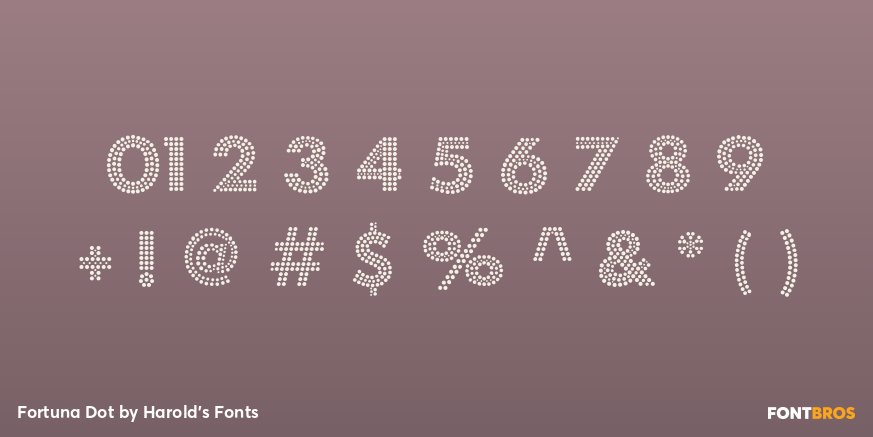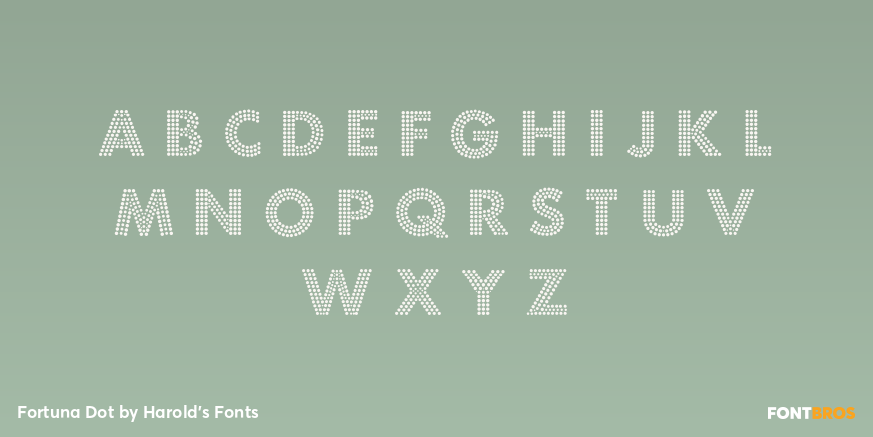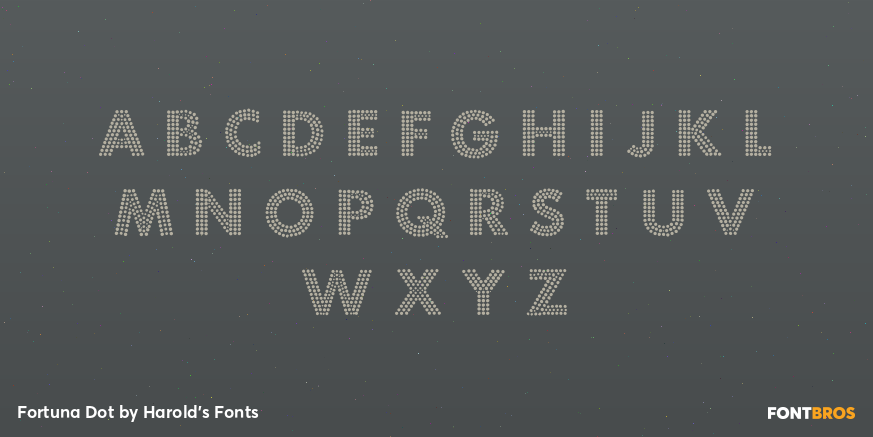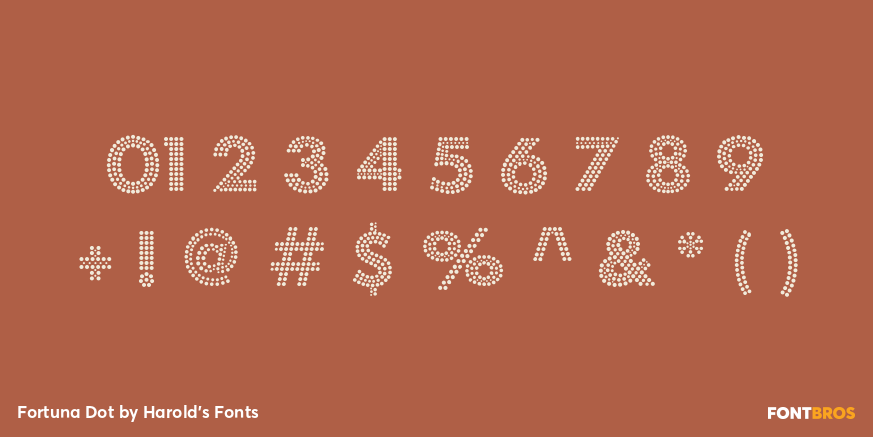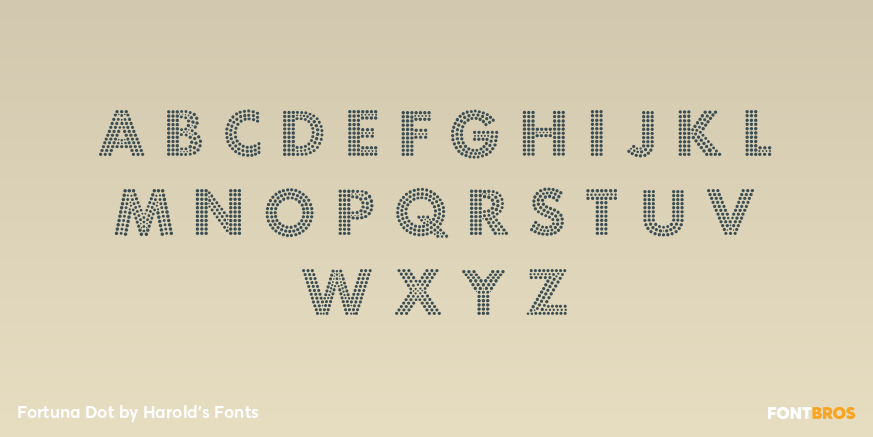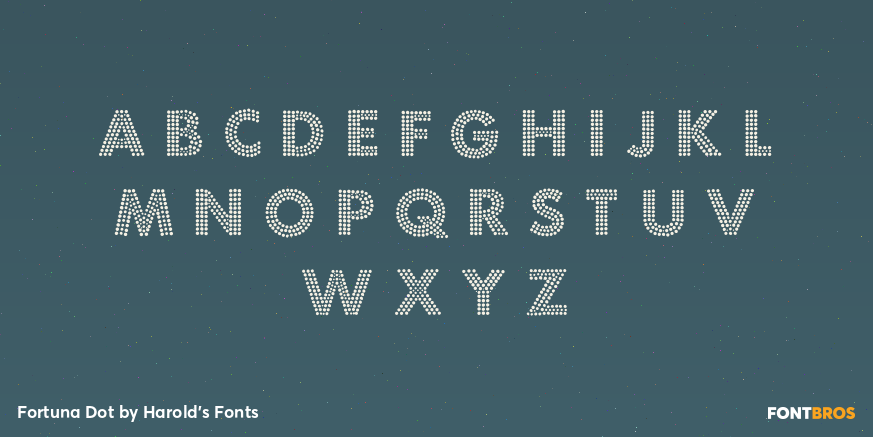
Fortuna Dot
Font Family by Harold's Fonts
FORTUNA DOT gives your words the effect of being written with tiny lights or beads. This revival of a "lost" analog font was suggested by Bruce Baryla, the bold geometric letter forms were inspired by Paul Renner's classic Futura.